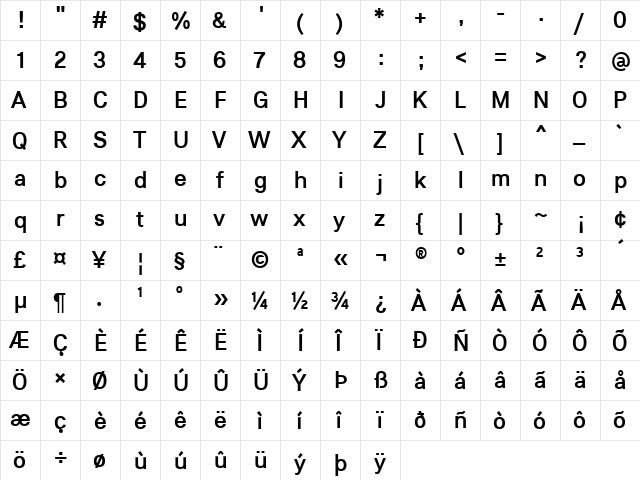
Lunchtype22 Medium
| Foundry | Steppot |
| Designer | Lunchtype.com |
Design Context for Lunchtype22 Typeface
Lunchtype22 offers clean, dependable letterforms without strong stylistic allegiance, making it a practical choice for designers who need flexibility.